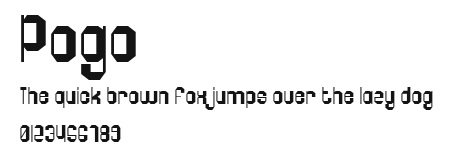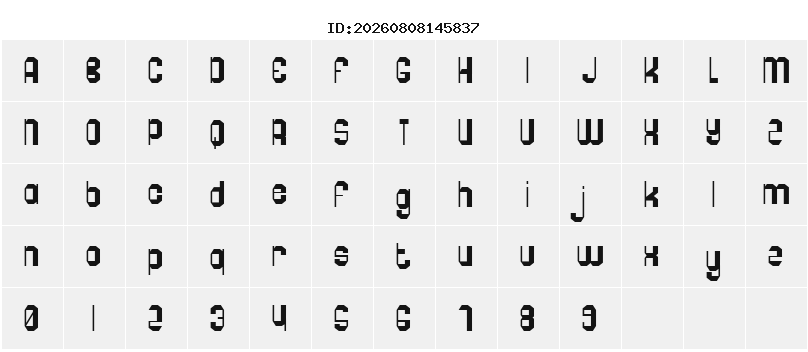
• Font Name: Pogo
About Pogo.ttf
Pogo.ttf is a modern, elegant sans-serif font designed for ultimate readability and visual harmony. Perfect for branding, headlines, web design, and print materials.